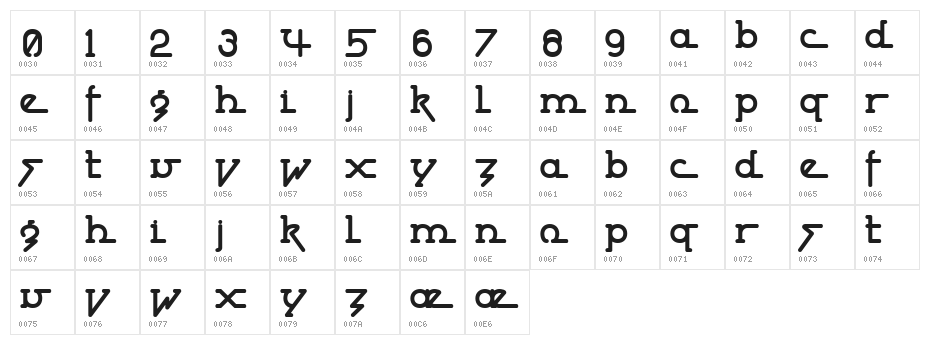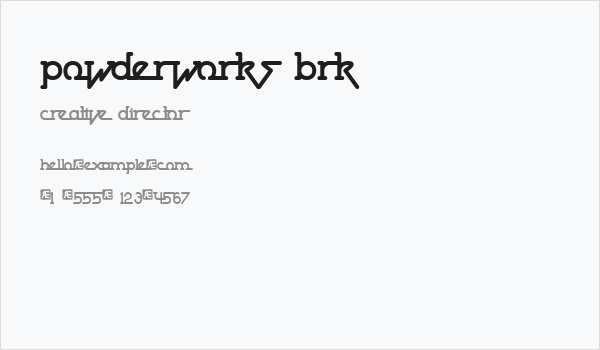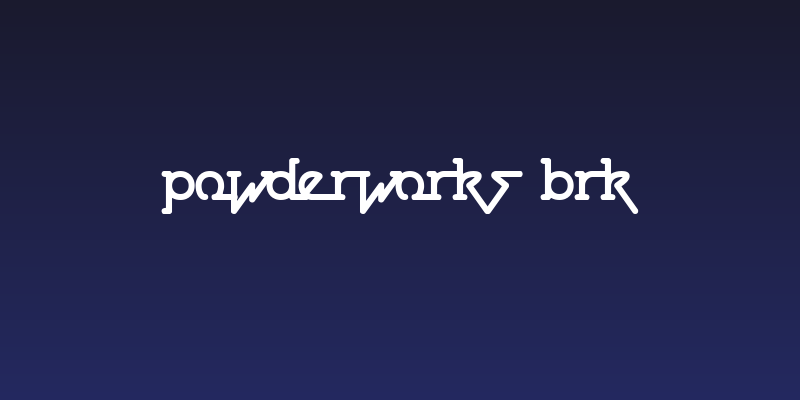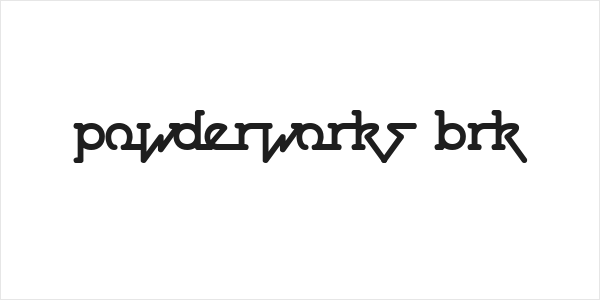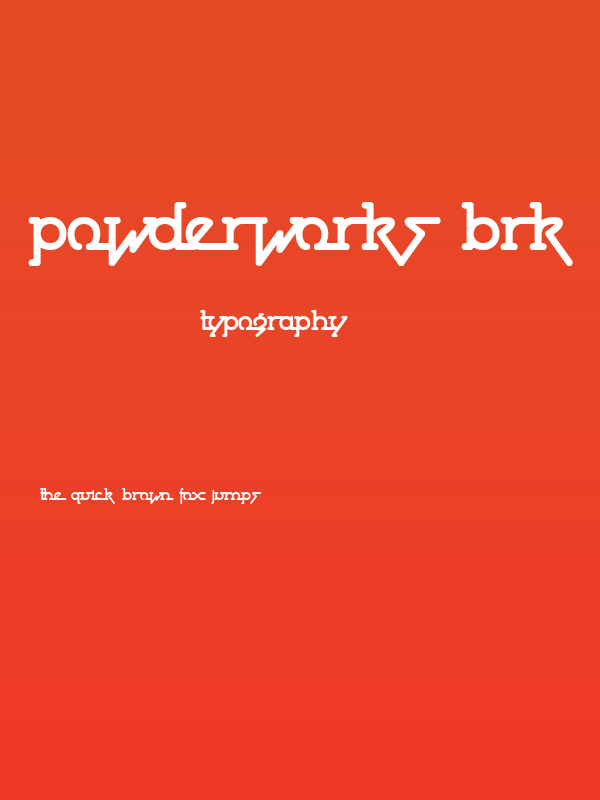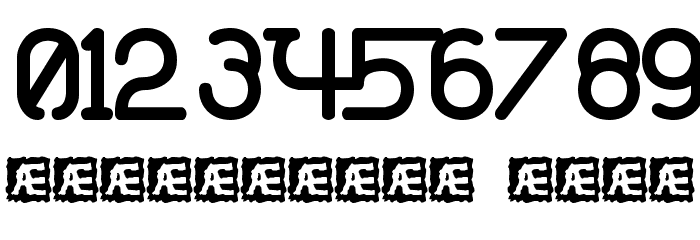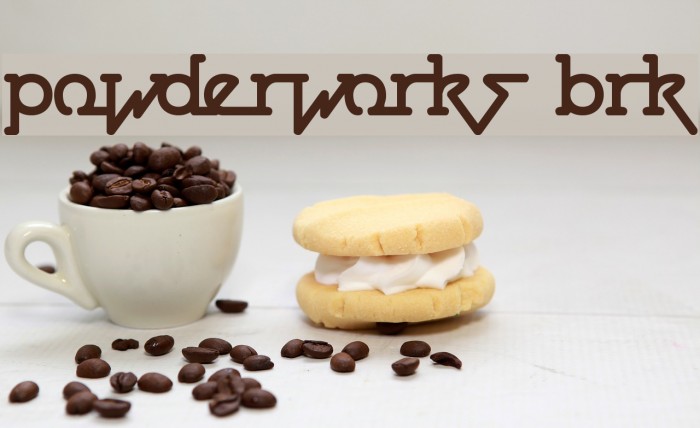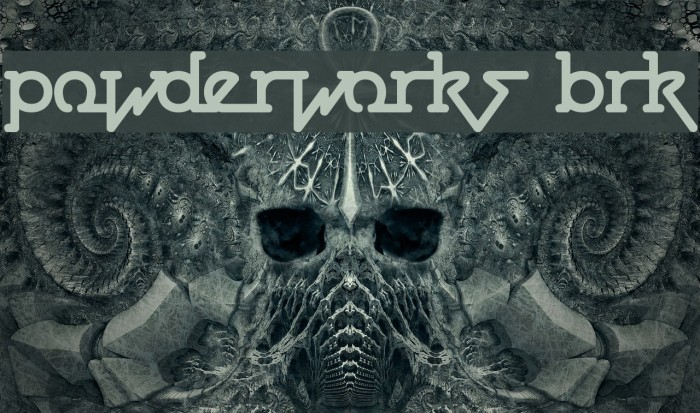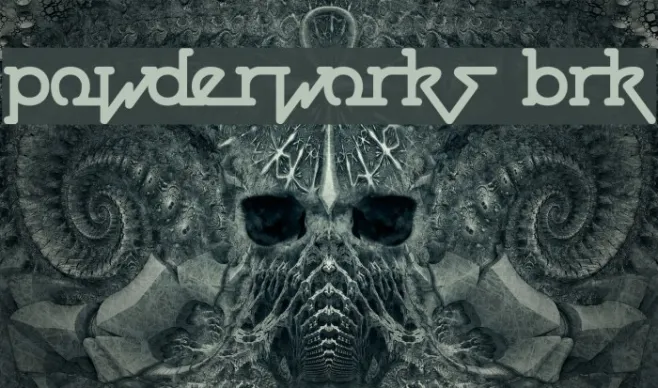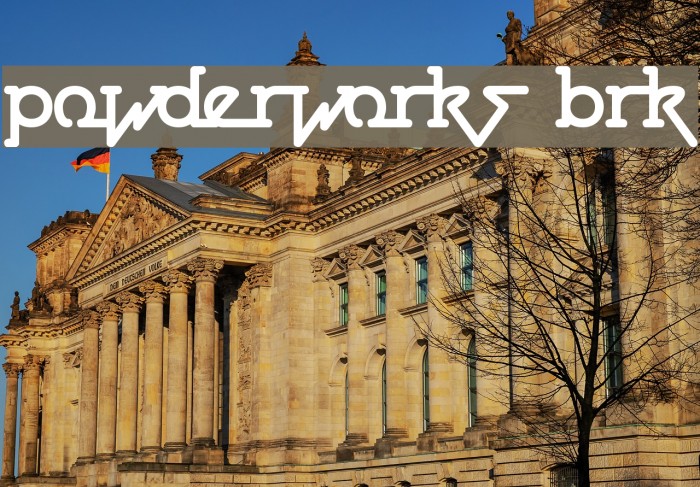
Powderworks BRK Font
Powderworks BRK Description
This font features a bold, rounded style with a unique geometric flair. The characters are interconnected with a continuous line that gives it a cohesive and flowing appearance. The uppercase and lowercase letters maintain a consistent height, creating a uniform look. The numbers follow the same design principles, ensuring readability and style. Special characters are designed with the same bold and rounded characteristics, making them stand out. The overall design is modern and playful, suitable for creative projects that require a distinctive and eye-catching typeface.
| Proposed Projects | Ideal for branding, posters, and creative digital designs where a modern and playful font is desired. |